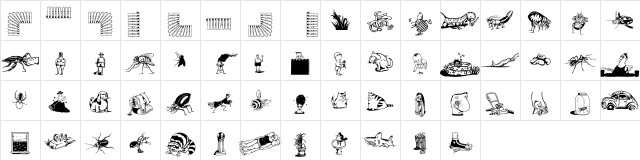
DfBackyardBeastiesITC Regular Free Font
DfBackyardBeastiesITC Regular
Design Context for DfBackyardBeastiesITC
DfBackyardBeastiesITC is a composed and adaptable typeface that performs quietly and consistently across a wide range of design contexts.